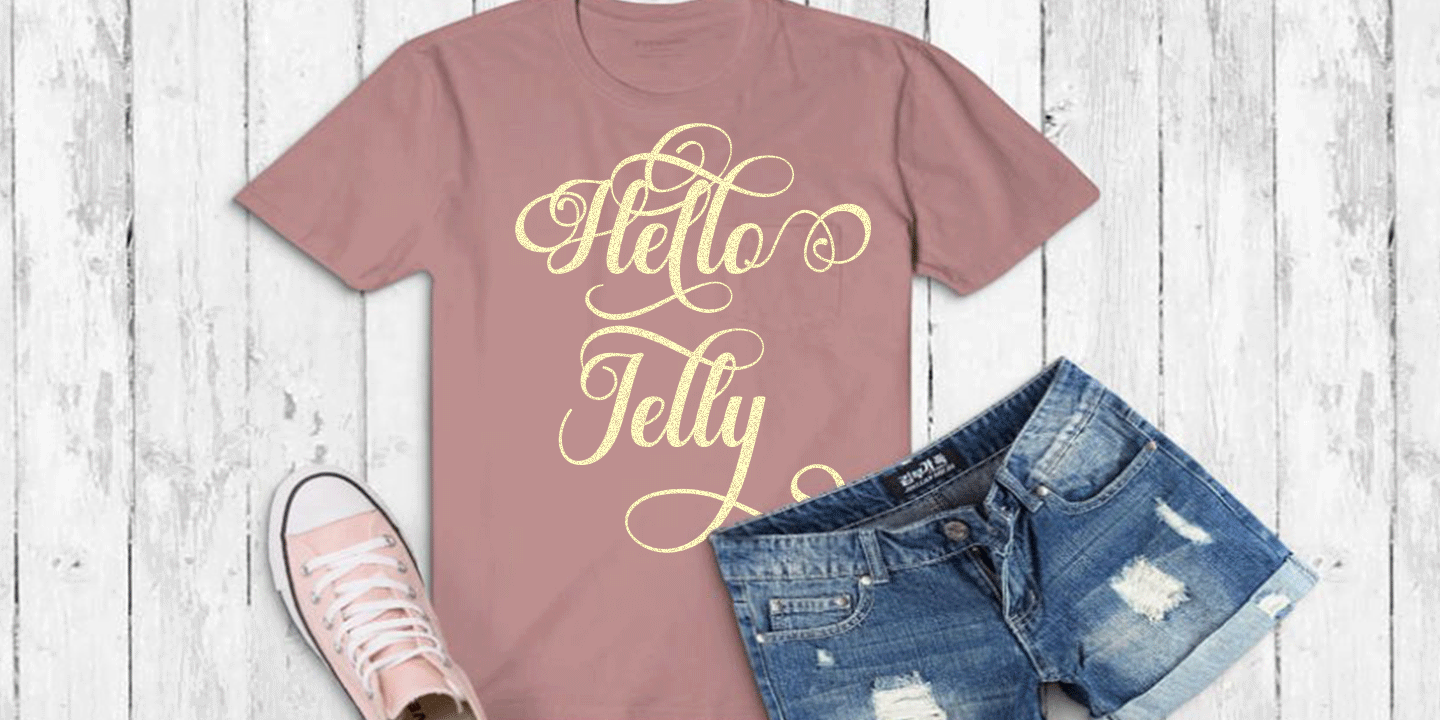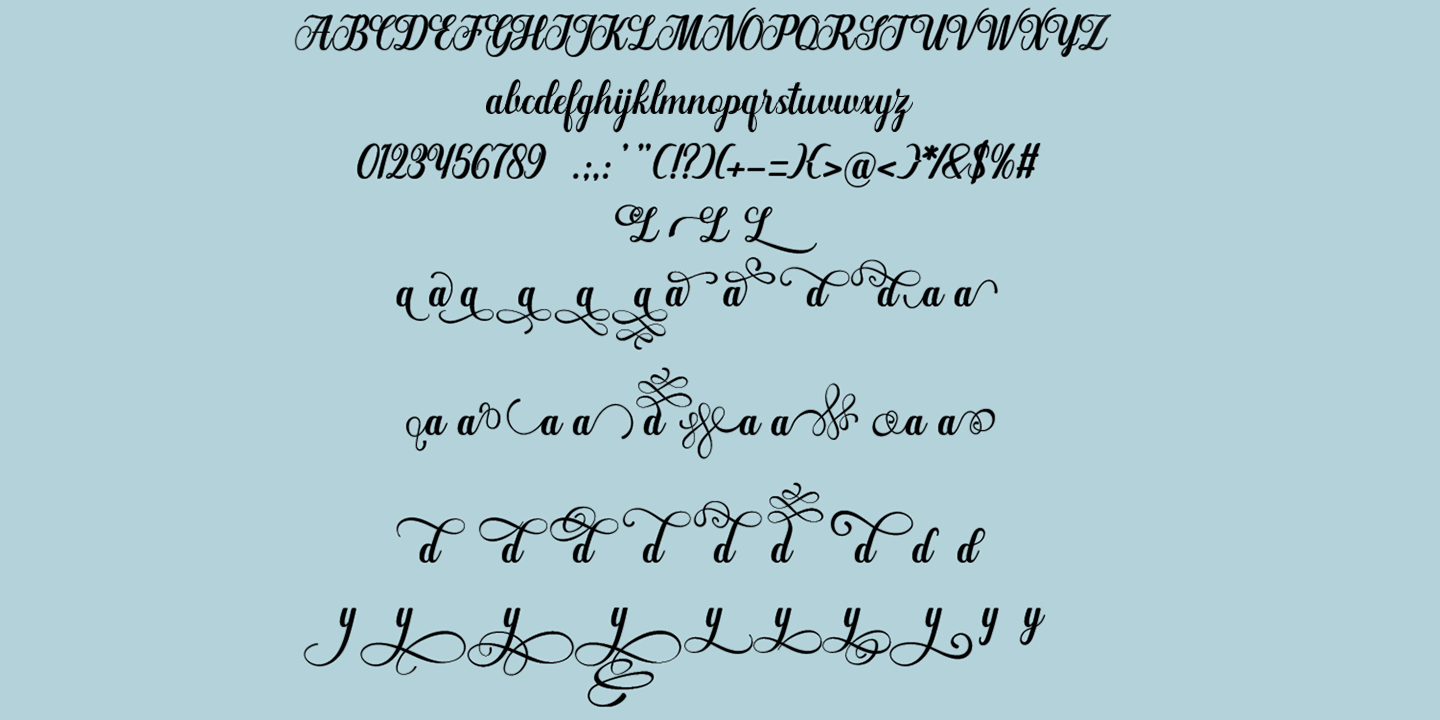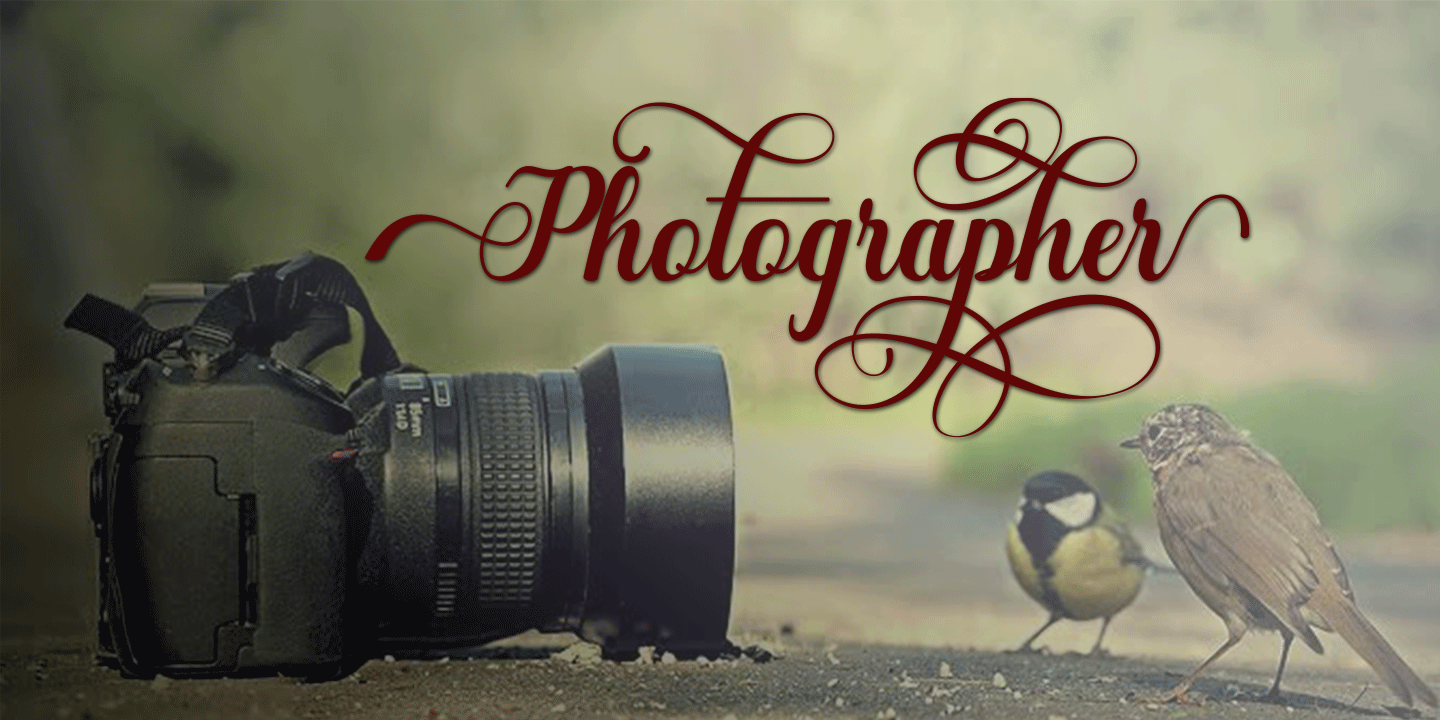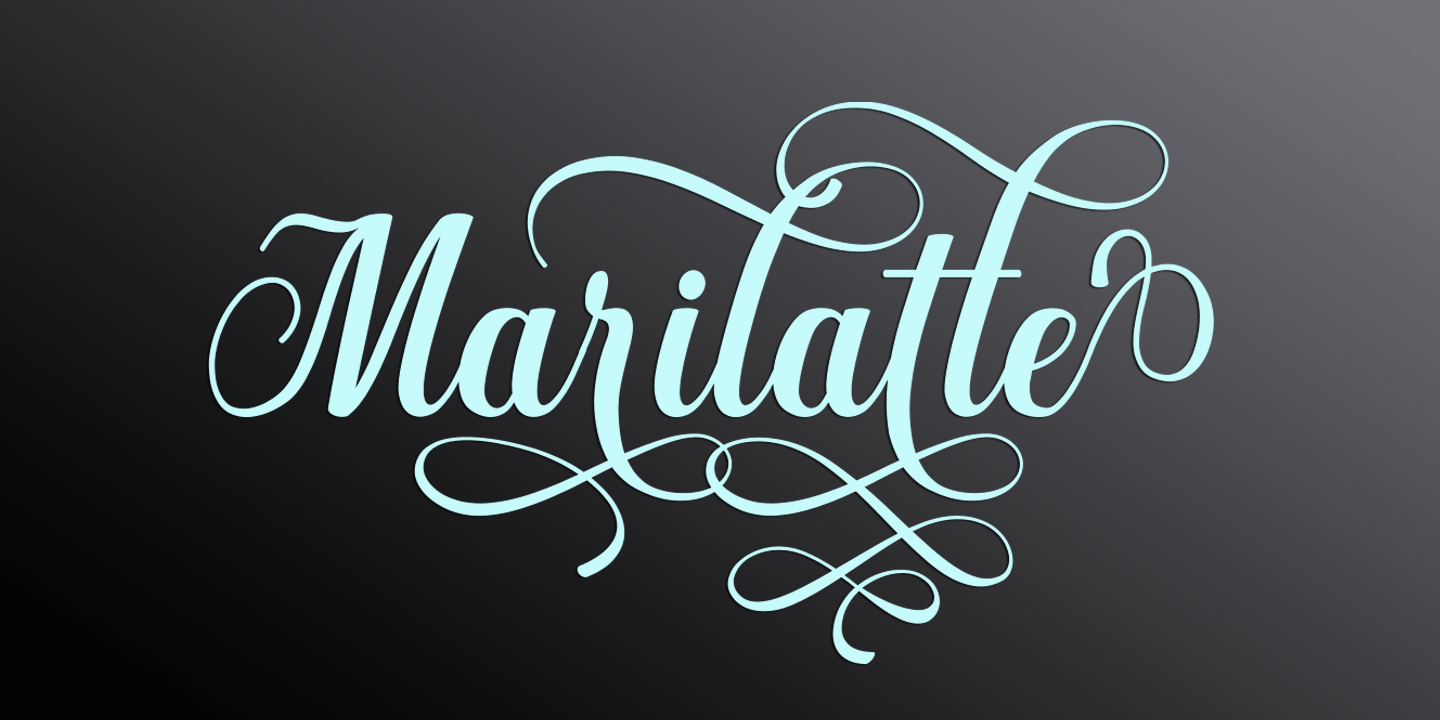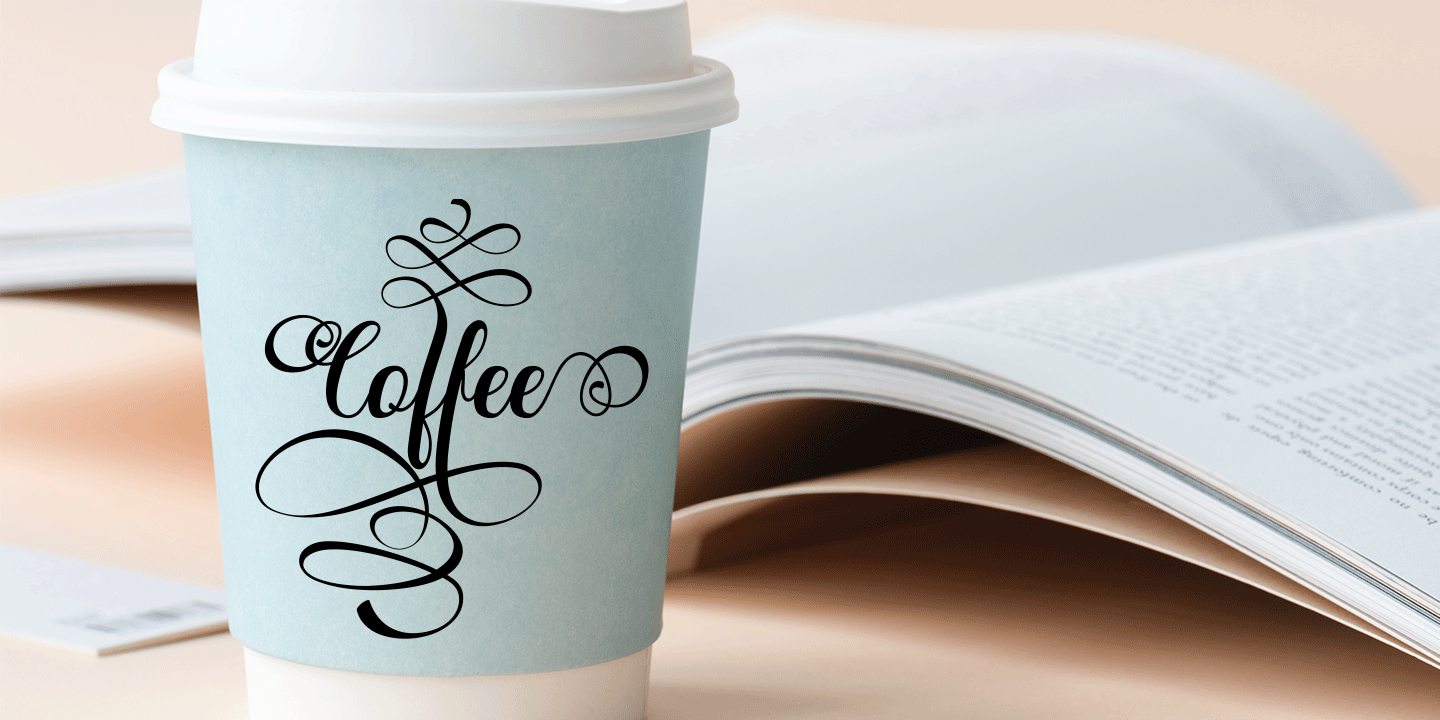
Marilatte Script
Marilatte Script is a new fresh & modern style with handmade calligraphy, decorative characters and dancing lineage! So wonderful are invitations like greeting cards, branding material, business cards, quotes, posters, and more!! Marilatte Script The comes with 883 glyphs. Alternate characters are divided into several Open Type features such as Swash, Stylistic Sets, Stylistic Alternate, Contextual Alternate. Open Type features are accessible by using Open Type savvy programs such as Adobe Illustrator, Adobe InDesign, Adobe Photoshop Corel Draw X versions, and Microsoft Word. And this font has code PUA unicode (font with special code). So that all alternative characters can be easily accessed by craftsmen or designers. Uppercase & lowercase International signature & symbol Punctuation Support & PUA number Unicode Style Style Alternative Style Style Range 1-26 Contextual Character Variations.